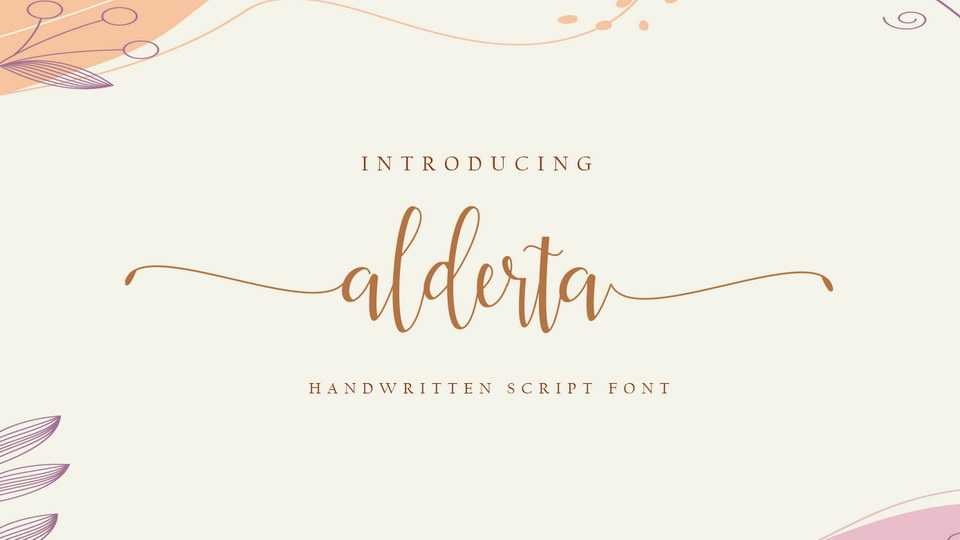
Download Alderta font, a charming modern calligraphy script with a touch of nature and elegance. Alderta font looks beautiful for wedding and feminine design, card, social media and more.
Designer: Fiqi Febriyanto